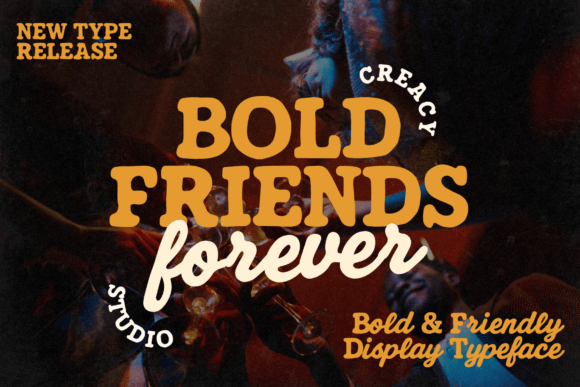
A Creative Spark: Introducing Bold Friends Forever Font
Have you ever stumbled upon a font that instantly captures the essence of your brand’s personality? For designers, this is the holy grail of creative moments. Imagine you’re brainstorming ideas for a new logo, and suddenly, a font pops up that perfectly embodies the tone and vibe you’re aiming for. This is exactly what the Bold Friends Forever Font promises to deliver.
This vibrant display typeface is designed to unite the best of vintage and contemporary typography, resulting in a unique and attention-grabbing visual identity. With its robust serif and cheerful script, the Bold Friends Forever Font is the perfect brew for brands looking to showcase their human, amusing, and unforgettable side. As a designer, you’ll find this font invaluable for its ability to elevate your designs and leave a lasting impression.
Bold Friends Forever Font Key Features
- Unique Characteristics: This font features bold and playful lines, perfect for creating eye-catching headings and titles
Bold Friends Forever Font Review
I’ve been using the Bold Friends Forever Font for a while now, and here’s my honest take.
- The font’s playful and bold aesthetic makes it perfect for children’s book covers or any project that needs a youthful vibe.
- The font’s high level of detail and unique character shapes give it a distinctive and memorable feel.
- The font is quite versatile, making it suitable for various use cases, from digital displays to print materials.
- The font’s bold and playful style might not be suitable for more professional or formal projects.
- The font’s high level of detail can make it challenging to read at small font sizes.
- The font might not be compatible with all operating systems or devices, which could lead to rendering issues.
Overall, the Bold Friends Forever Font is a great addition to any designer’s toolkit. While it has some limitations, its unique style and versatility make it a valuable resource for the right projects. With a little creativity and caution, you can unlock the full potential of this font and create something truly special.
For best results, use the font in a bold or large size to make the most of its distinctive style.
For optimal results, use the font in combination with other bold and playful elements.
For best results, use the font in headings and titles to create a bold and eye-catching visual impact.
The Bold Friends Forever Font is ideal for:
- Social media graphics and posts.
- Event invitations and promotional materials.
- Blog posts and articles with a playful tone.
- Brand identity and marketing materials.
Alternatives to Bold Friends Forever Font
Great Vibes is a beautiful, modern script font perfect for adding a touch of elegance and sophistication to your designs. It’s ideal for use in branding, invitations, and other creative projects where a personal touch is required.
Comparison to Bold Friends Forever Font: Great Vibes is more elegant and refined, making it suitable for formal or high-end designs. Bold Friends Forever Font is more playful and casual.
Dancing Script is a lively, handwritten font that’s perfect for adding a sense of movement and energy to your designs. It’s ideal for use in creative projects such as posters, social media graphics, and advertising materials.
Comparison to Bold Friends Forever Font: Dancing Script is more dynamic and energetic, making it suitable for projects that require a sense of movement and action. Bold Friends Forever Font is more laid-back and casual.